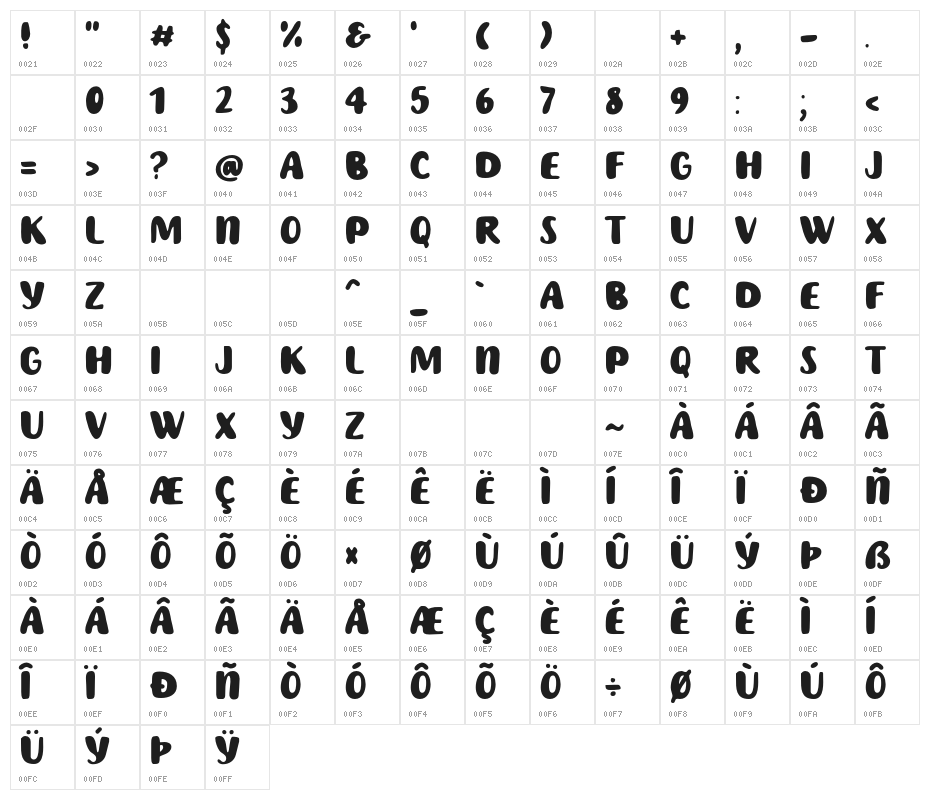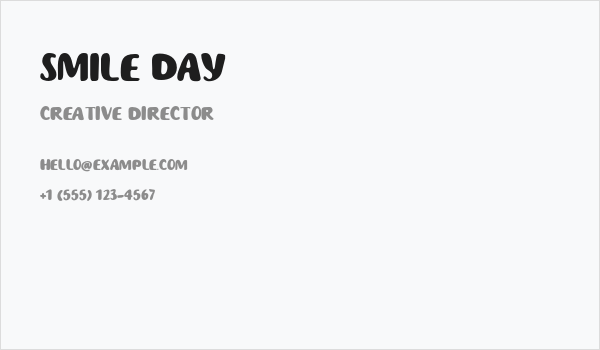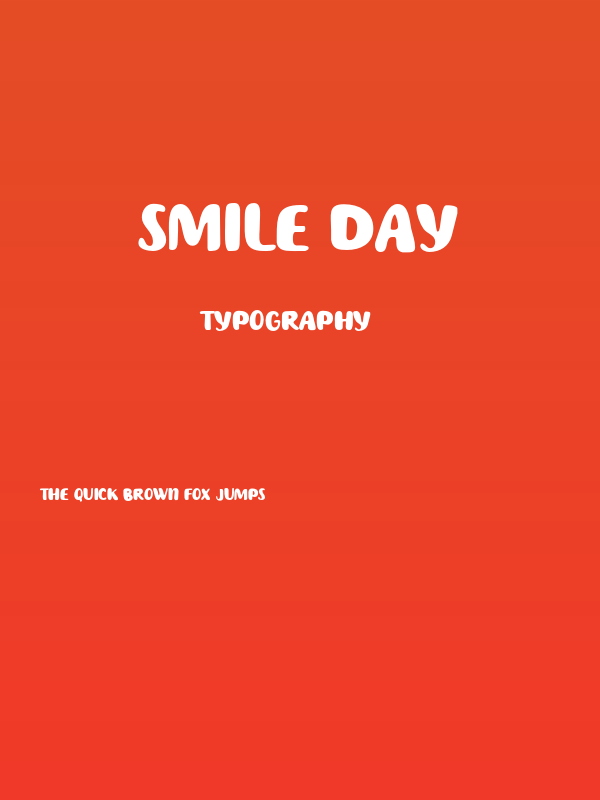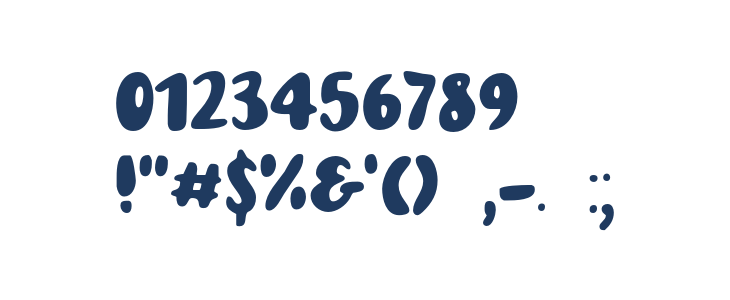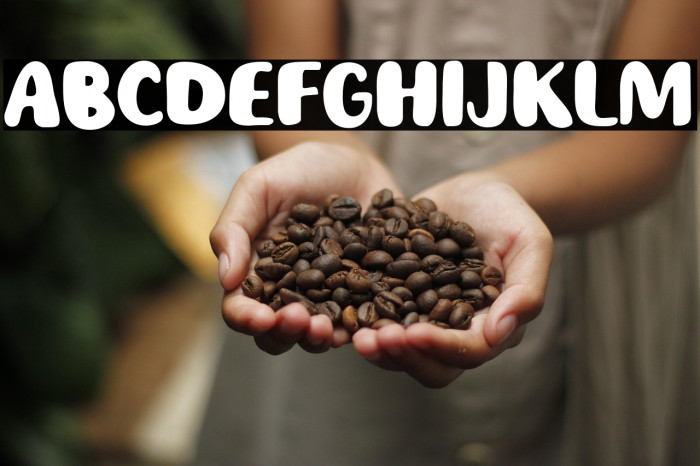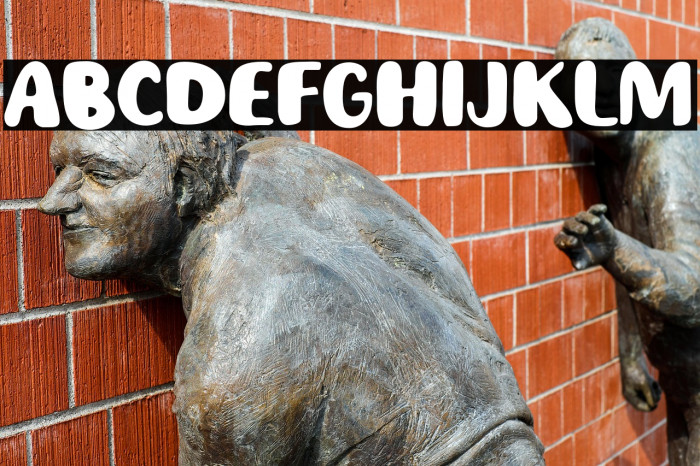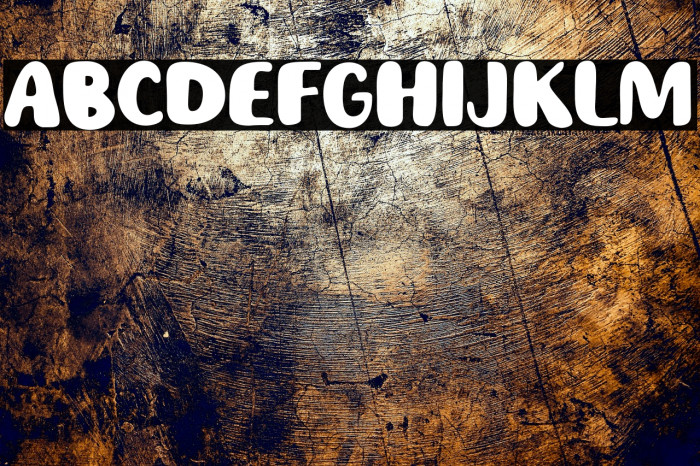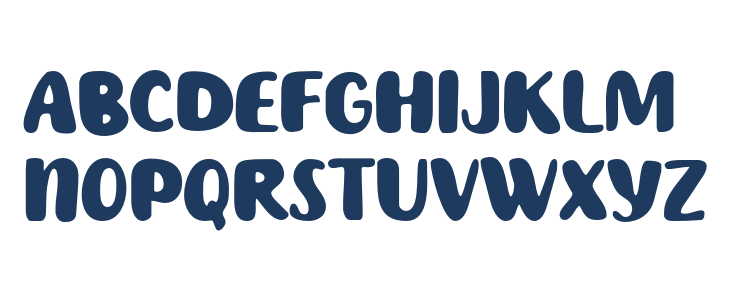
Smile Day Font
Smile Day Description
This playful and bold font features rounded, bubbly characters that exude a sense of fun and whimsy. The letters are thick and have a uniform stroke width, giving them a bold presence on the page. The rounded edges and smooth curves make it approachable and friendly, ideal for designs that aim to convey joy and creativity. The numbers and special characters maintain the same playful style, ensuring consistency across all text elements. This font is perfect for projects that require a lively and energetic vibe.